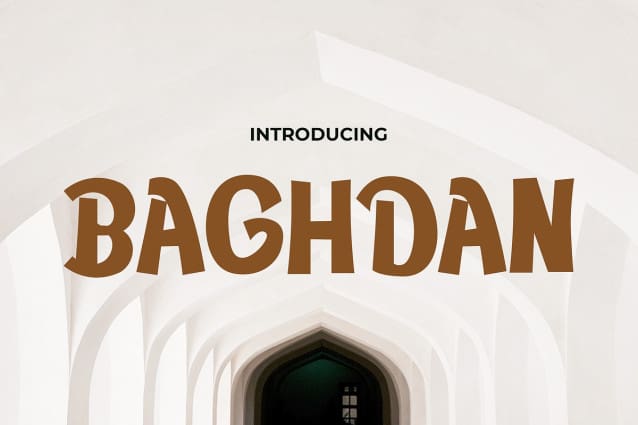
Baghdan Playful Font
Baghdan Playful Font a delightful font imbued with the essence of childhood innocence and Islamic culture, tailored specifically for projects targeting kids and Islamic cartoons. With its playful yet graceful design, Baghdad captures the imagination and spirit of young minds, offering a unique blend of fun and spirituality. Each letter is carefully crafted to reflect the beauty of Islamic artistry, evoking a sense of reverence and wonder while maintaining a lighthearted and whimsical feel.
Whether you’re creating educational materials, designing animated characters for Islamic cartoons, or developing interactive games with an Islamic theme, Baghdad adds a touch of cultural richness and charm to your creations. Its versatility allows it to seamlessly integrate into a variety of projects, captivating young audiences while instilling valuable Islamic values and teachings. Let Baghdad be your go-to font for infusing creativity, joy, and Islamic ethos into every design, fostering a love for learning and spirituality in the hearts of children everywhere.